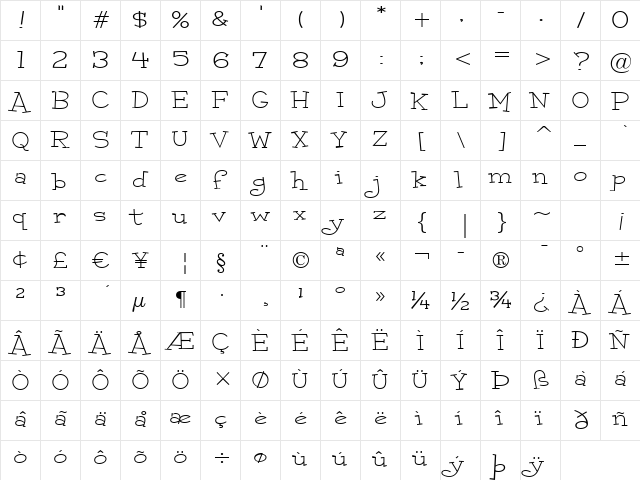
Malihini Cuban BTN Exp Lt Regular
Design Context for Malihini Cuban BTN Exp Lt Typeface
Malihini Cuban BTN Exp Lt is a composed and adaptable typeface that performs quietly and consistently across a wide range of design contexts. Its slender proportions lend an understated elegance to any composition.